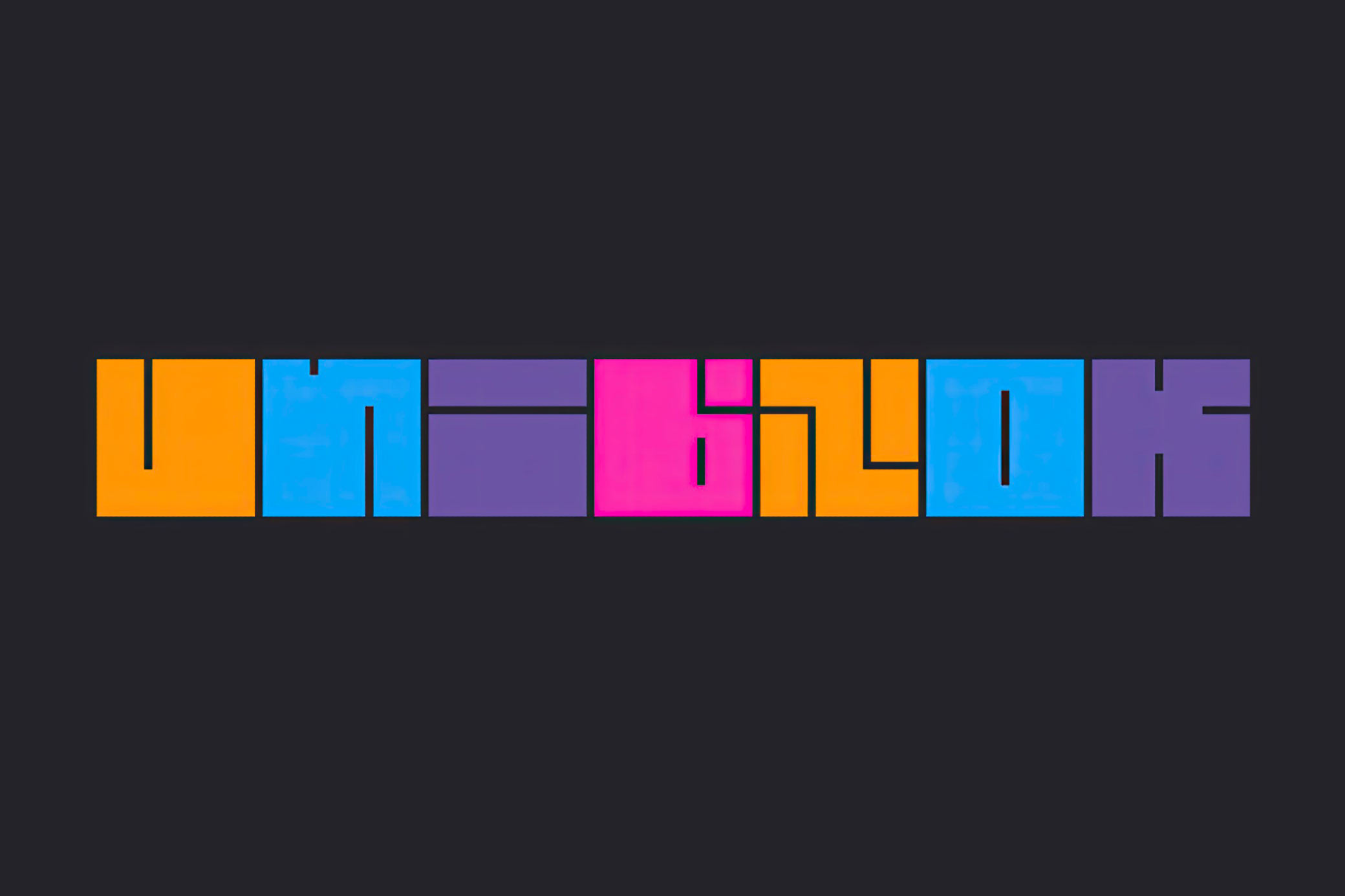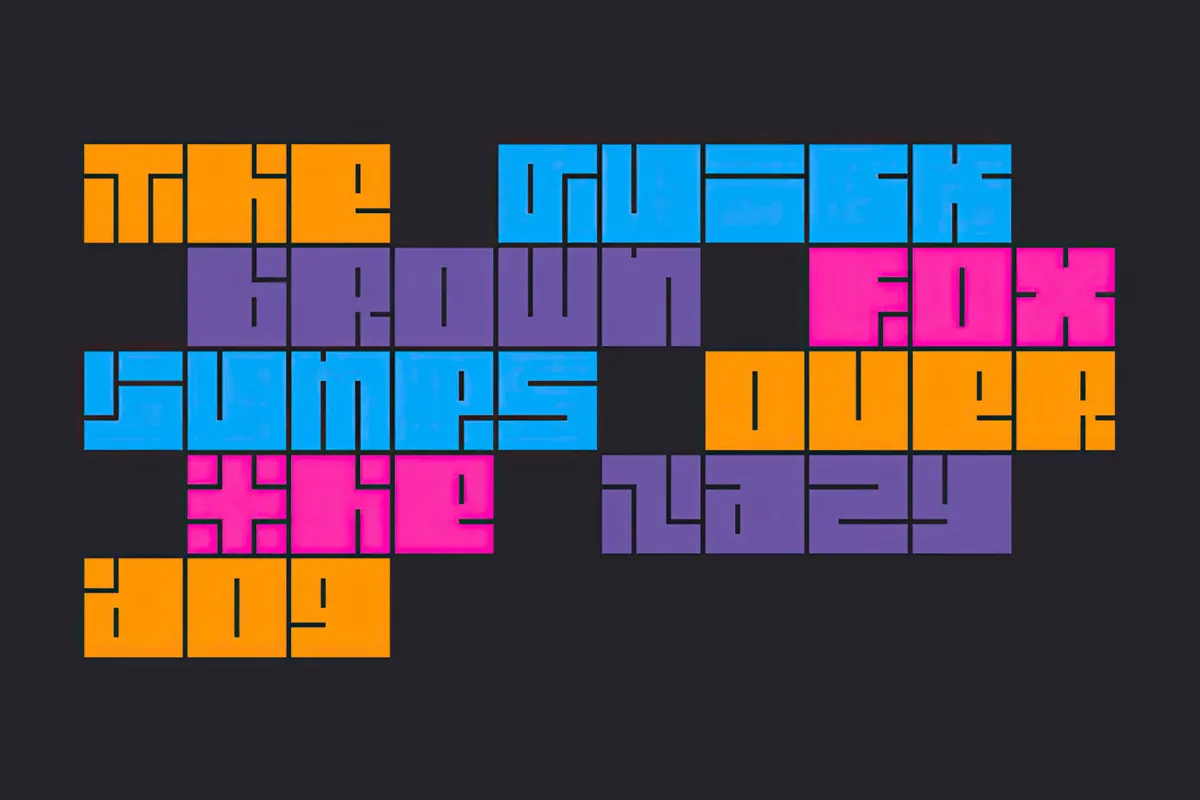
Uniblock Font
A heavyweight all-caps Uniblock recalls 1970s modular signage and early arcade cabinet titles. The square, slabby strokes and clear spacing stack into solid, dense wordmarks that make it perfect for gaming logos, tech branding, sports graphics, posters, packaging, editorial headlines, and social media visuals.